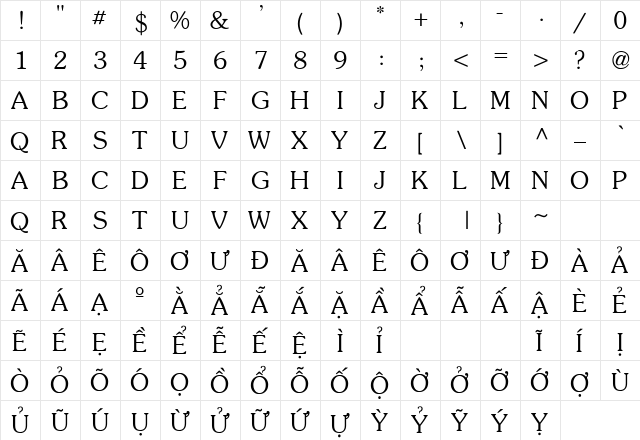
.VnSouthernH Regular Font Preview
.VnSouthernH Regular
Design Context for .VnSouthernH Typeface
.VnSouthernH takes a measured approach to typography — its balanced proportions and neutral character make it a reliable workhorse for both digital and print work.